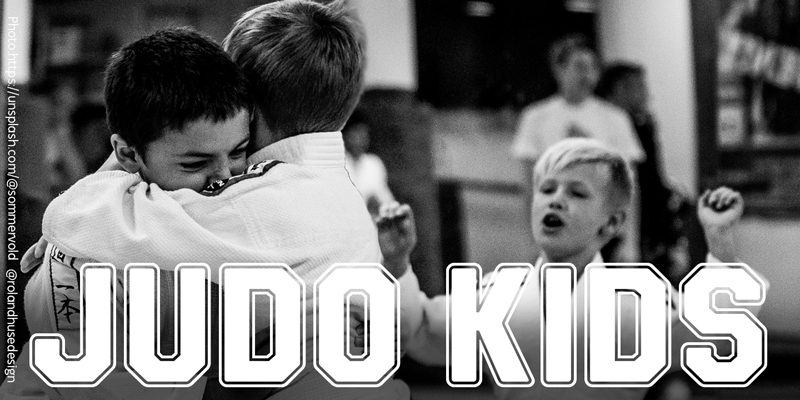
Preview and download Judo Kids Font. Created by Roland Huse Design in Fancy Old School styles with Demo license.
This is the demo version of Judo Kids, an all caps, bold and outlined college fonts. Free for personal use only. For commercial use please purchase a license at rolandhuse.com. If any question, or request, please don�t hesitate to contact at rolandhuse.com I hope you like this one, Cheers & Good luck with your creative work! Roland available at https://www.creativefabrica.com/es/designer/roland-huse-design/ref/2092 |